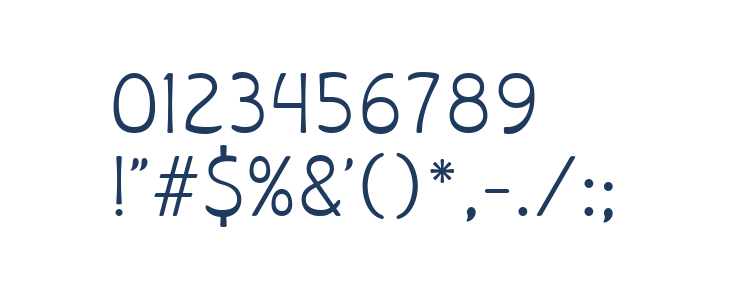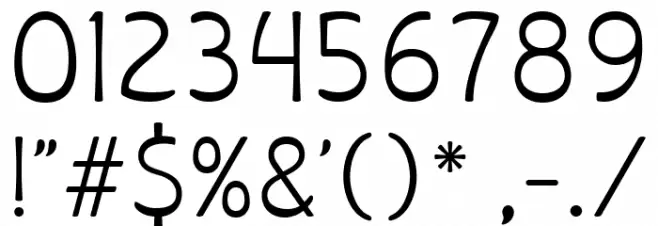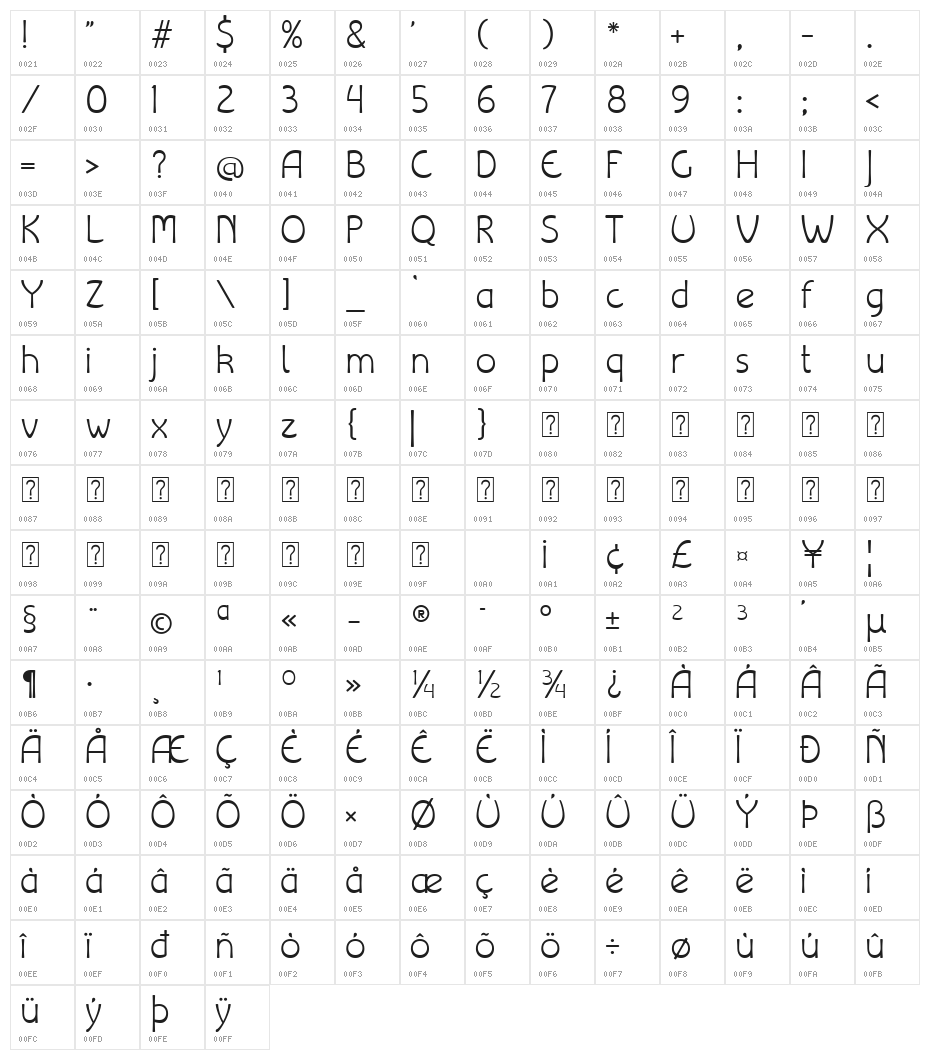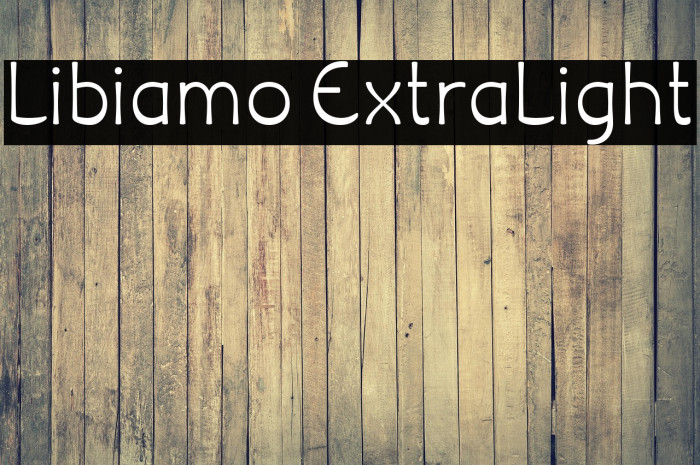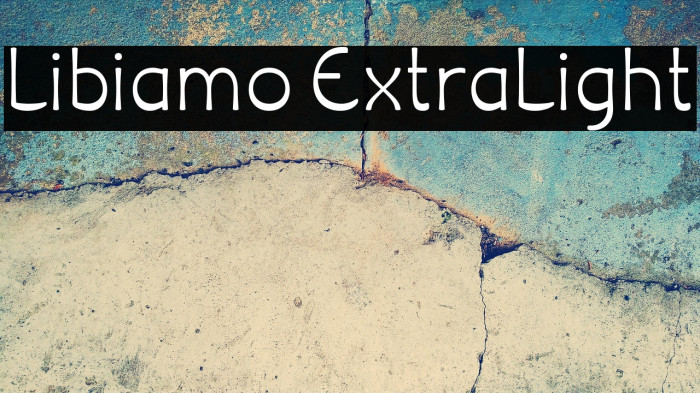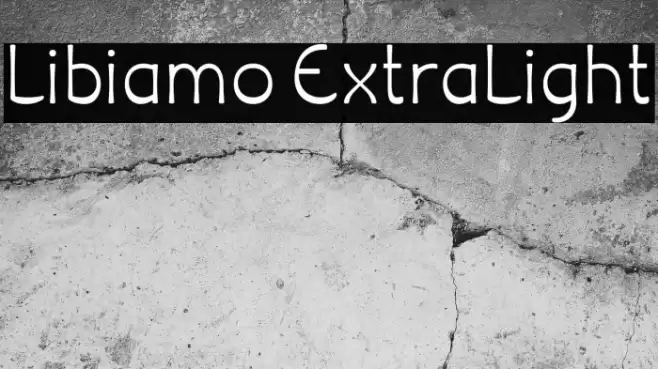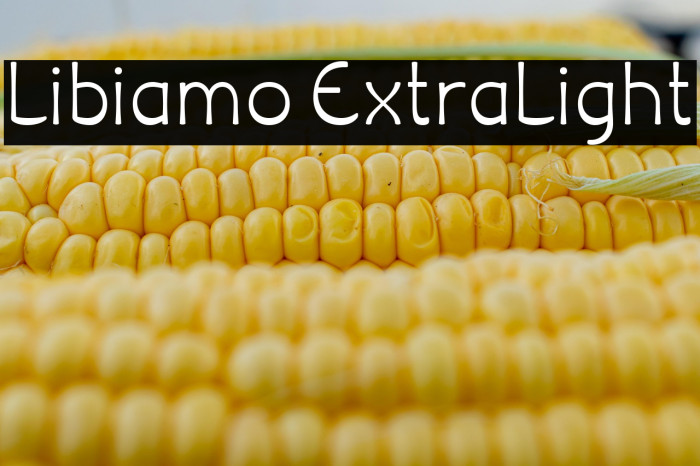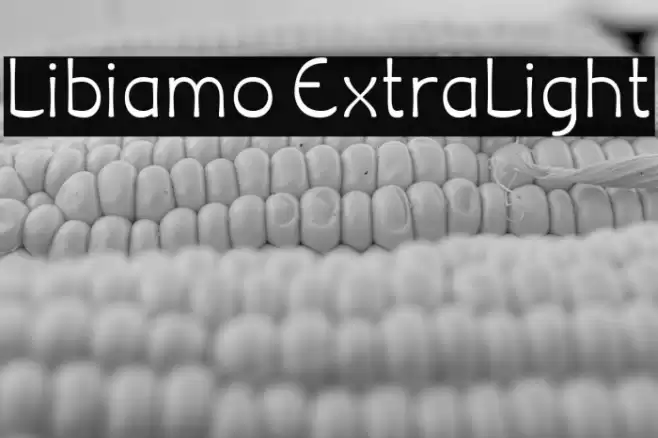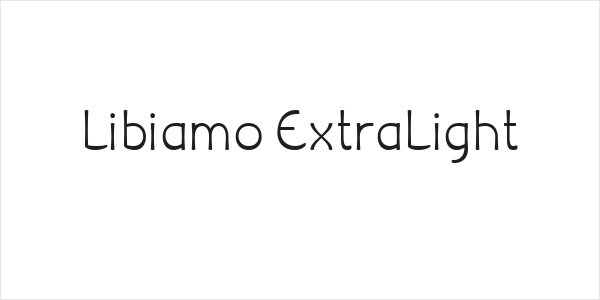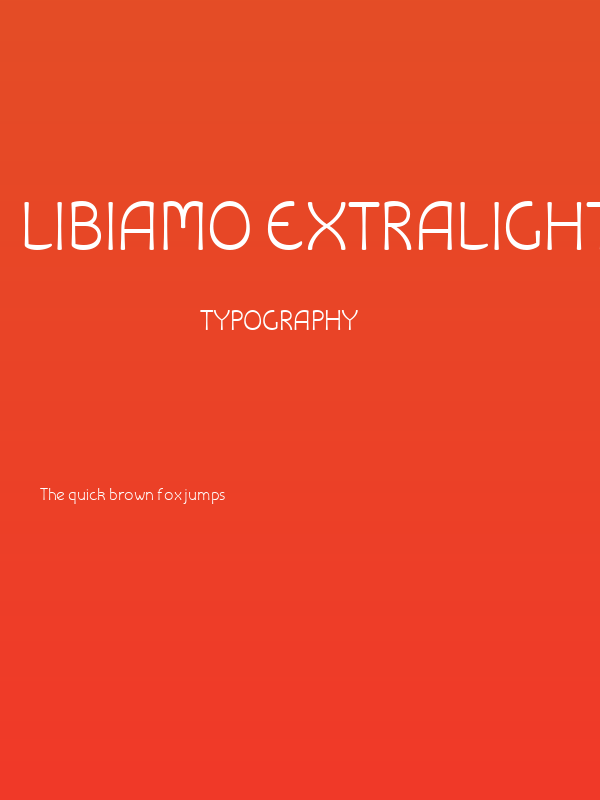
Libiamo ExtraLight Font
Libiamo ExtraLight Description
This font features a playful and rounded design, characterized by its smooth curves and gentle lines. The letters are evenly spaced, providing a clean and airy appearance. Its extra light weight gives it a delicate and elegant feel, making it suitable for projects that require a soft and approachable look. The font maintains a consistent stroke width, contributing to its modern and minimalist aesthetic. It includes a full set of uppercase and lowercase letters, numerals, and a variety of special characters, ensuring versatility for different design needs.